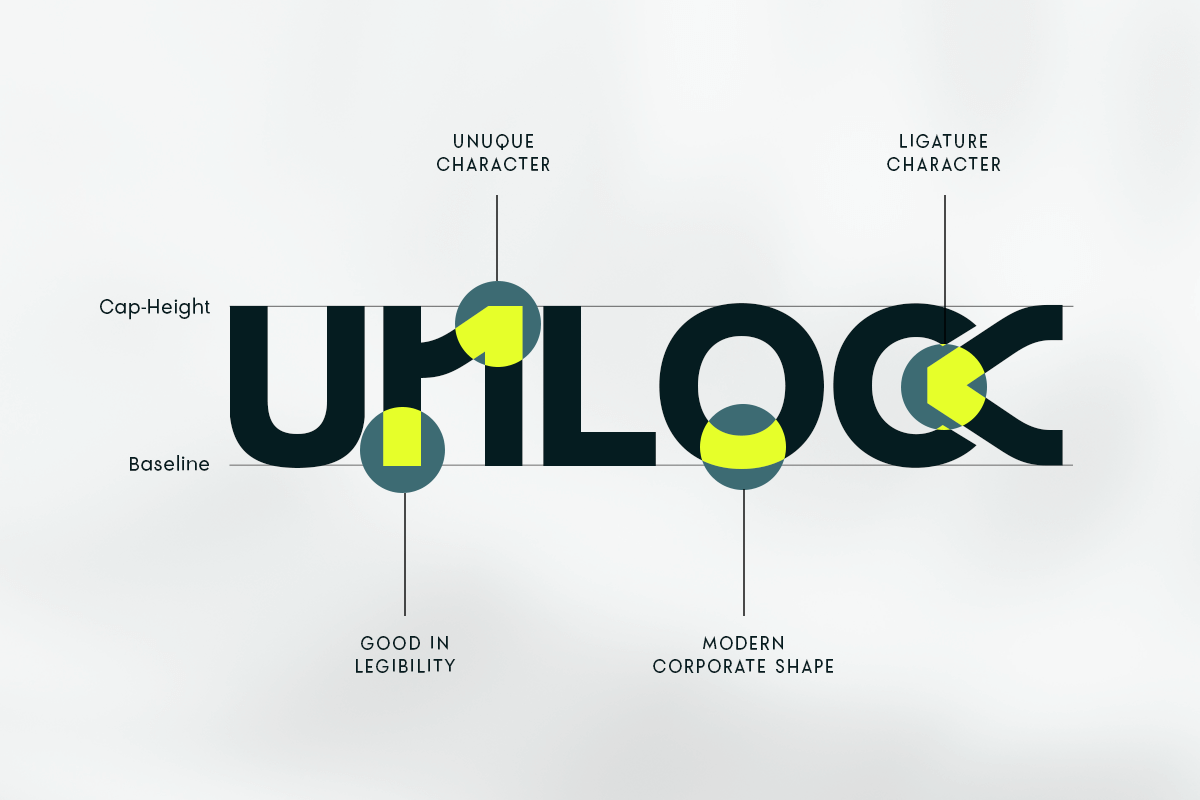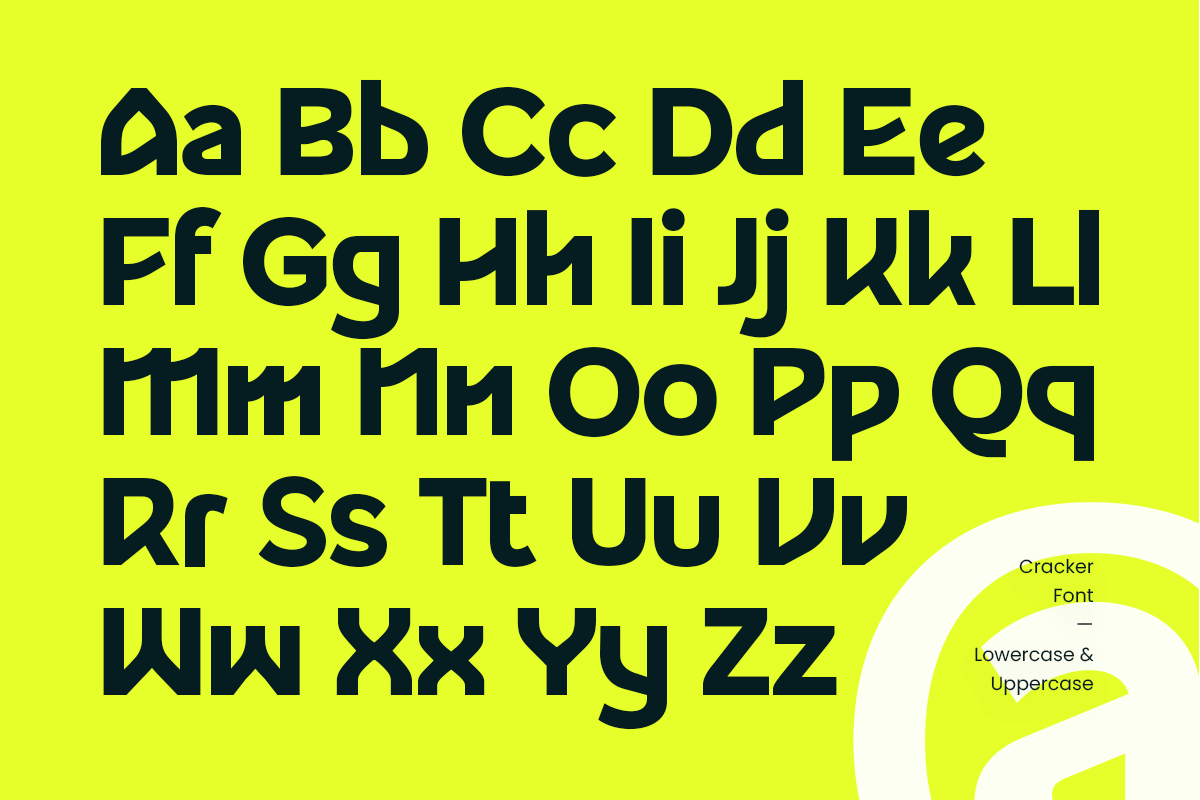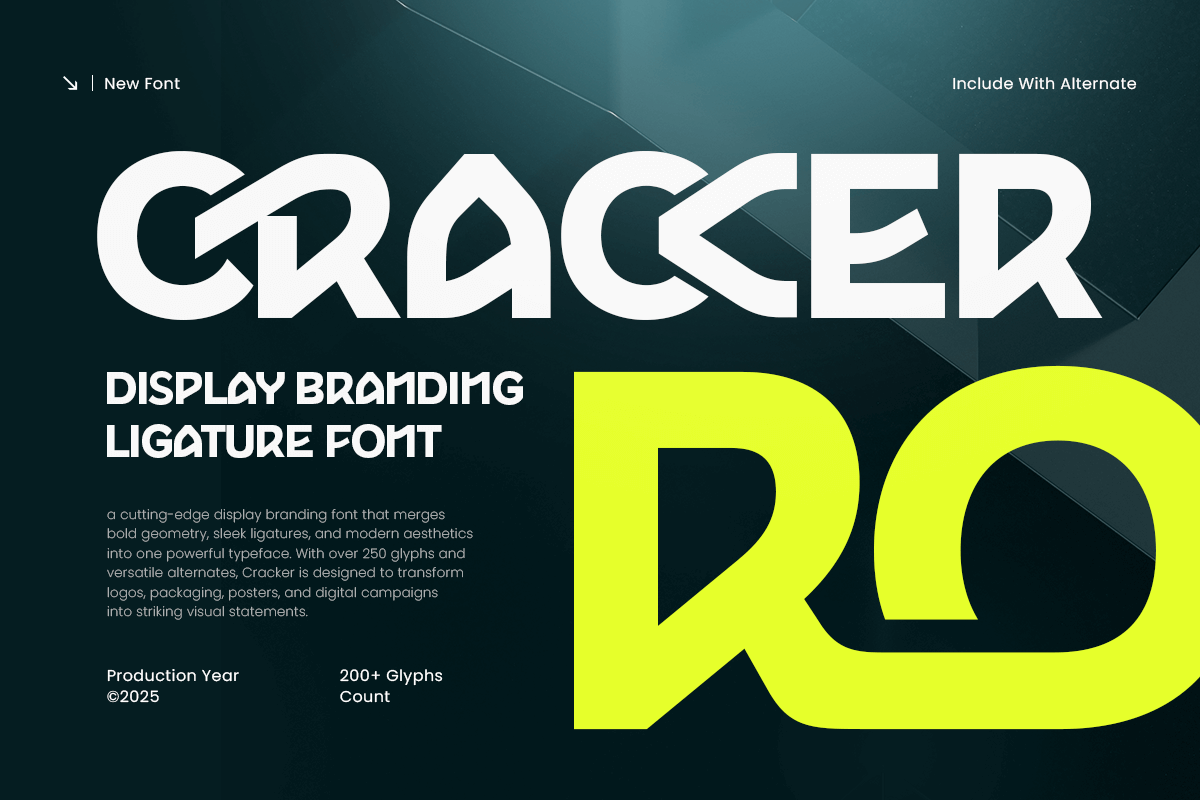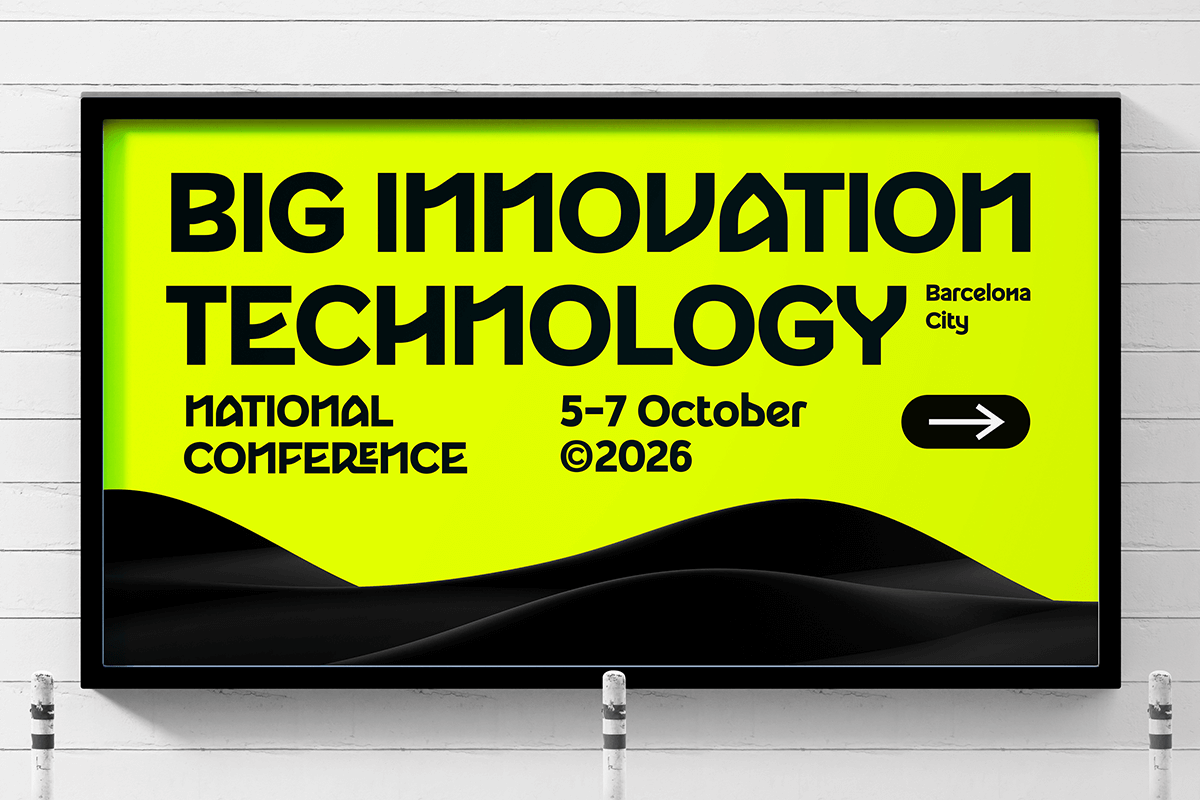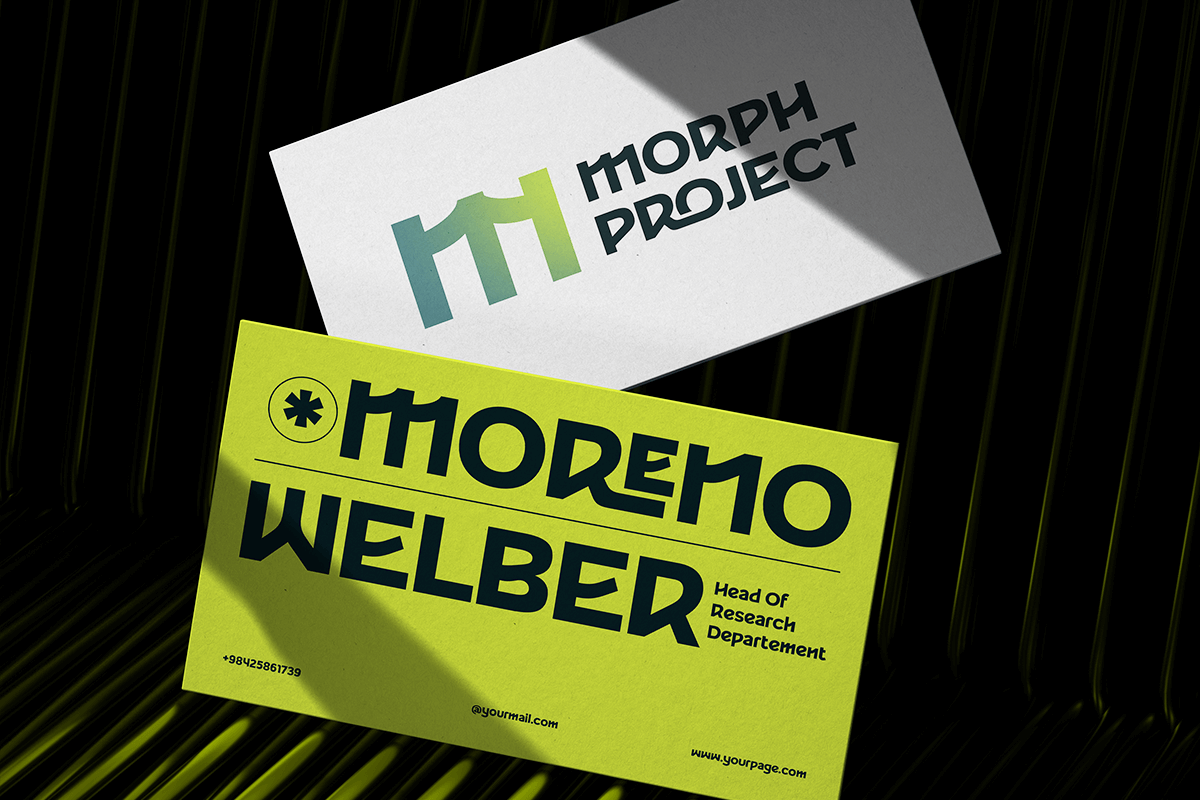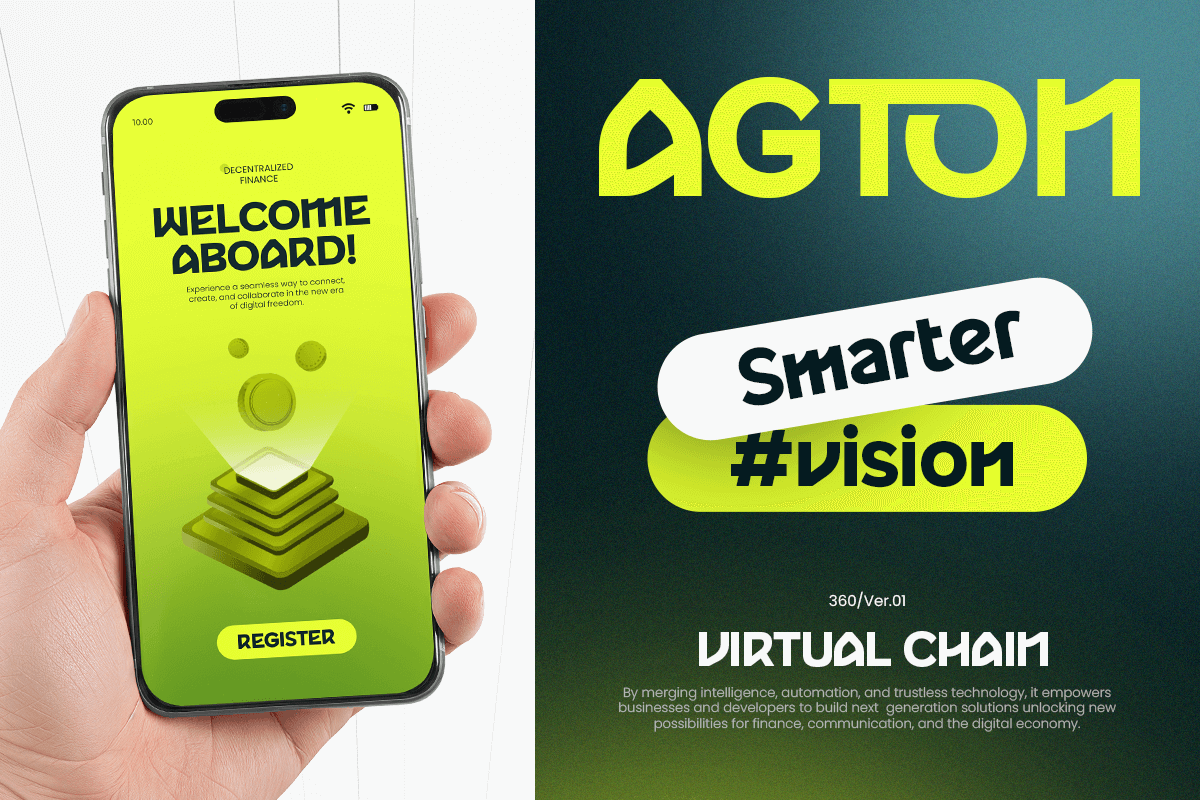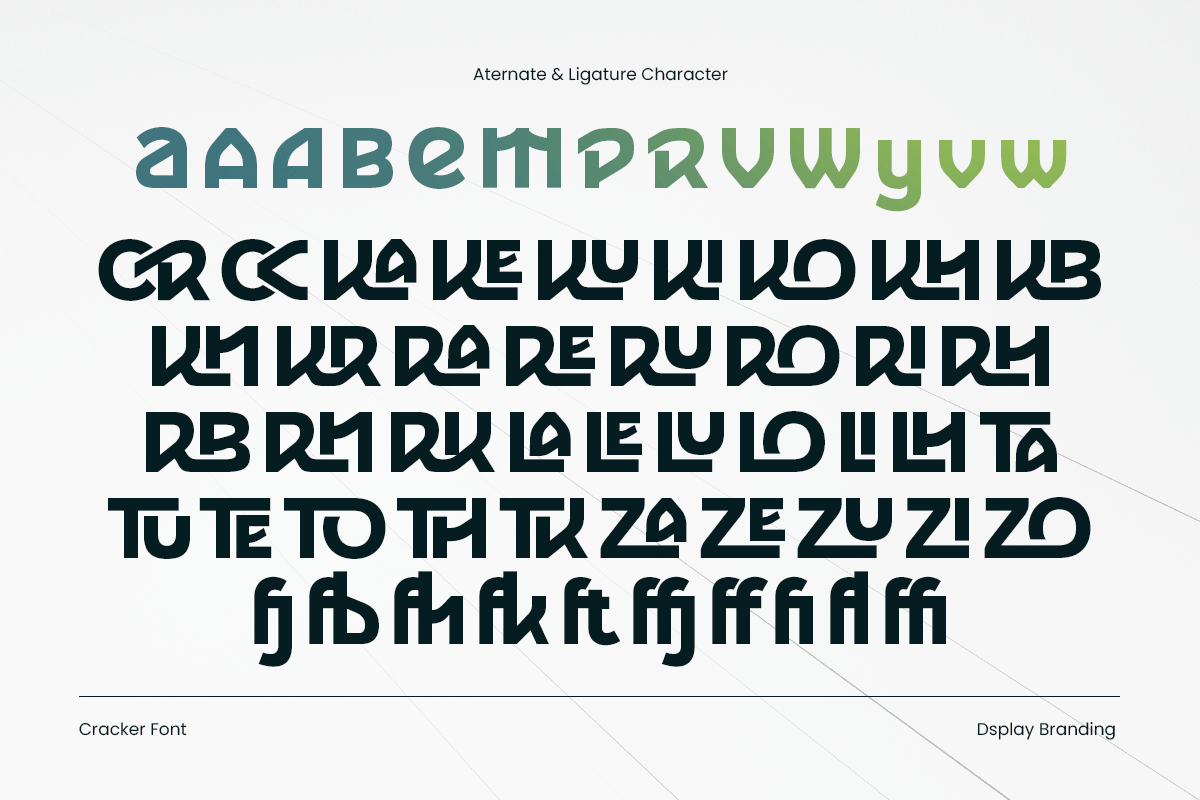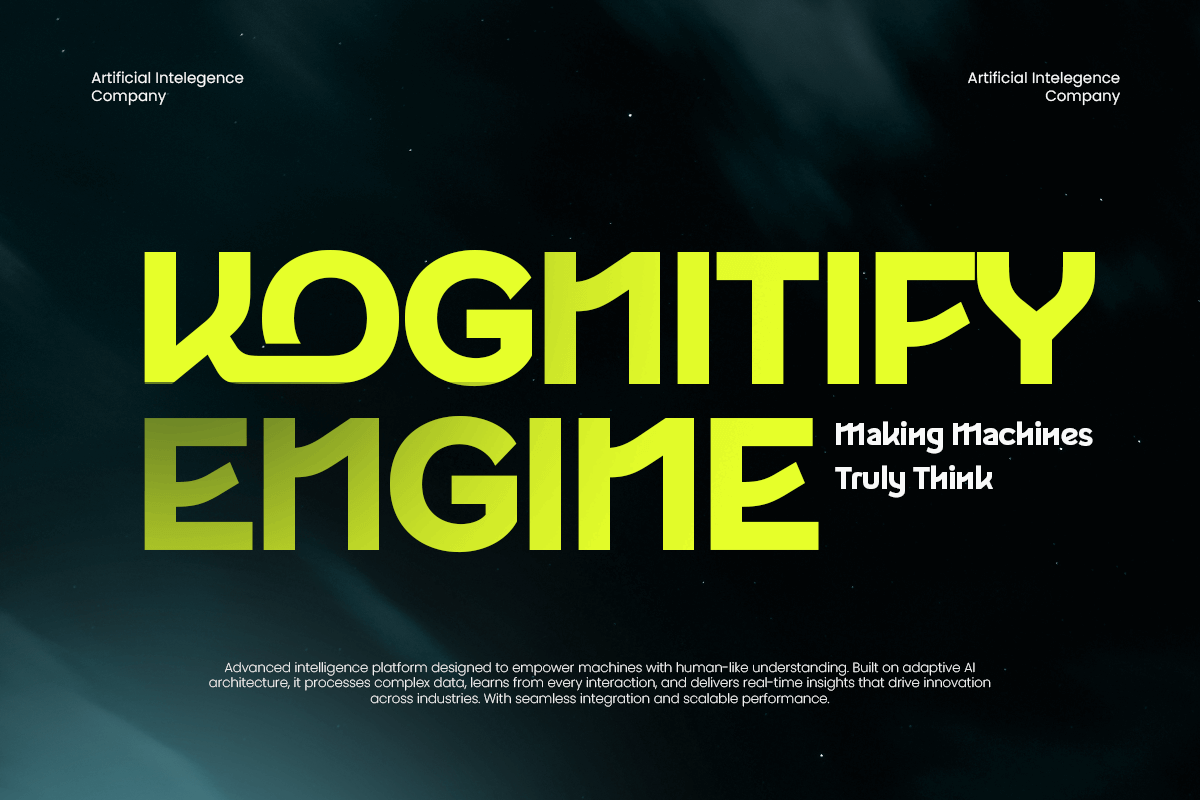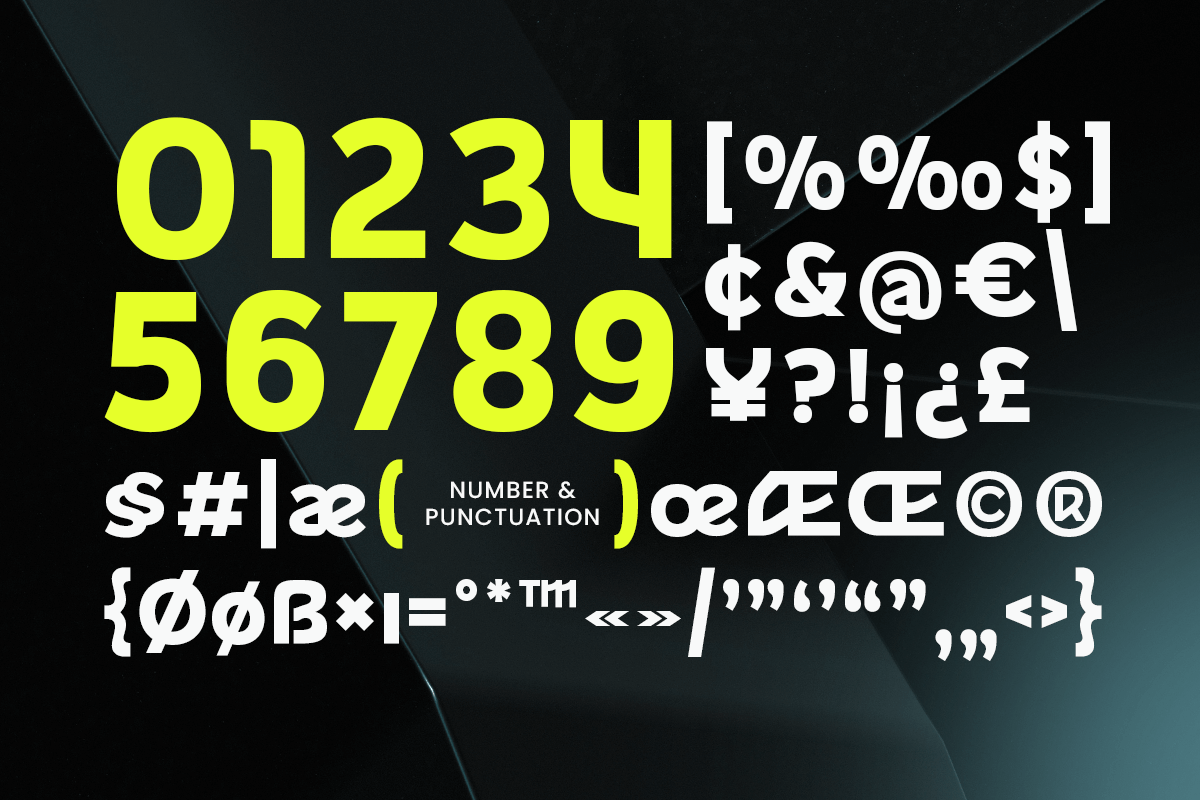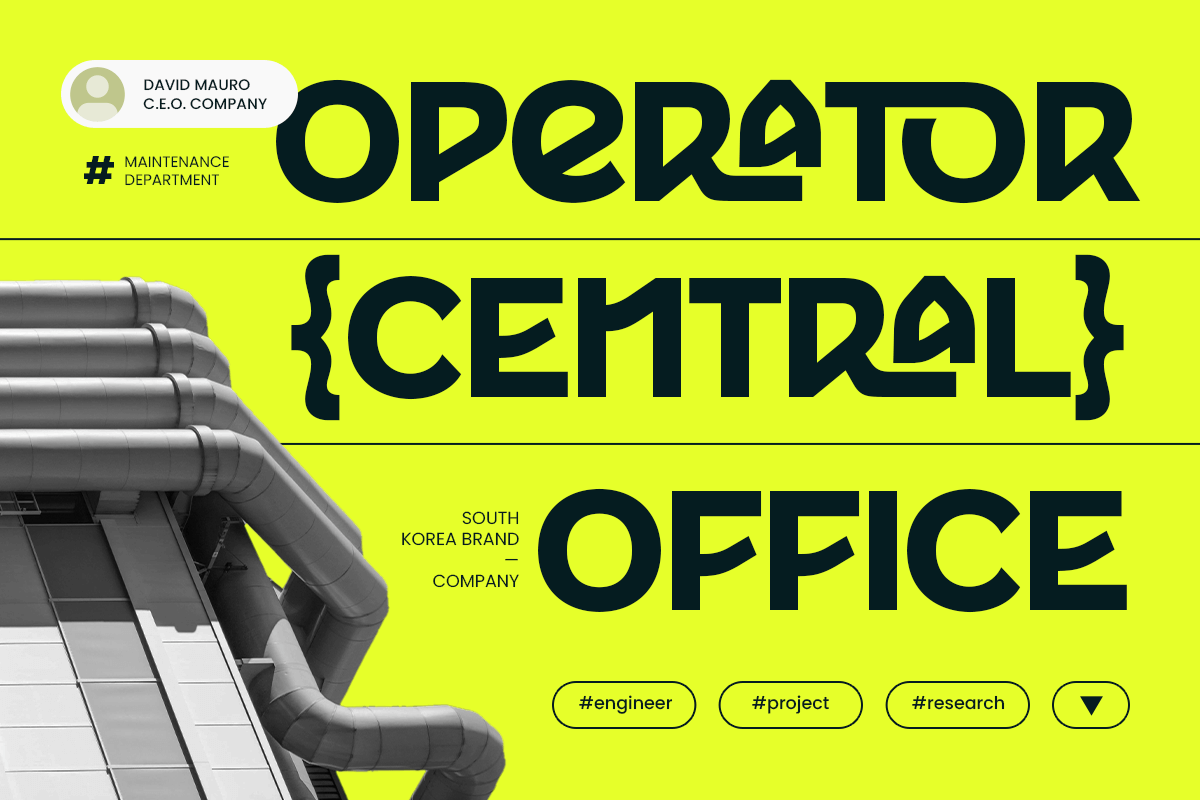
Cracker - Technology Branding Font
Cracker – Technology Branding Ligature Font
Cracker is a sleek and innovative technology font featuring modern ligatures and futuristic geometric styling. Designed for brands that want a clean, high-tech identity, Cracker delivers sharp precision and bold character forms ideal for logos, app interfaces, product branding, dashboards, UI/UX layouts, and corporate technology visuals.
Its advanced letter constructions and stylistic ligatures create a unique visual rhythm, helping your brand stand out with a professional and cutting-edge look. Cracker blends minimalism with strong digital aesthetics, making it the perfect choice for startups, software companies, IT products, and forward-thinking creative projects.
Cracker – Technology Branding Ligature Font Features:
* Futuristic technology style with unique ligatures
* Perfect for tech branding, logos, and digital products
* Includes uppercase, lowercase, numerals, and punctuation
* Clean geometry with optimized kerning
* Ideal for modern, innovative, and professional design needs
Strengthen your brand identity with Cracker – the technology ligature font crafted for bold digital design.